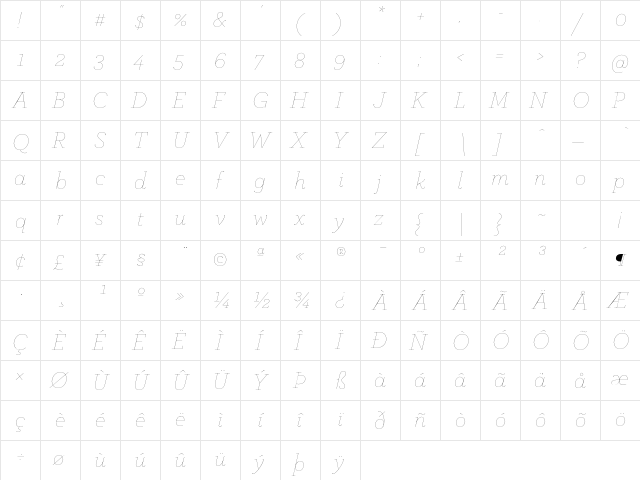
Archer Hairline Italic Font Preview
Archer Hairline Italic
| Foundry | Hoefler & Frere-Jones |
| Designer | Hoefler & Frere-Jones |
Design Context for Archer Typeface
Archer takes a measured approach to typography — its balanced proportions and neutral character make it a reliable workhorse for both digital and print work. The dynamic lean of this cut emphasises speed and emphasis in any layout. The delicate stroke weight brings airiness and refinement to layouts.
Pro Tip: Use Archer for emphasis, pull quotes, and subheadings where its slanted energy can add rhythm to the layout.